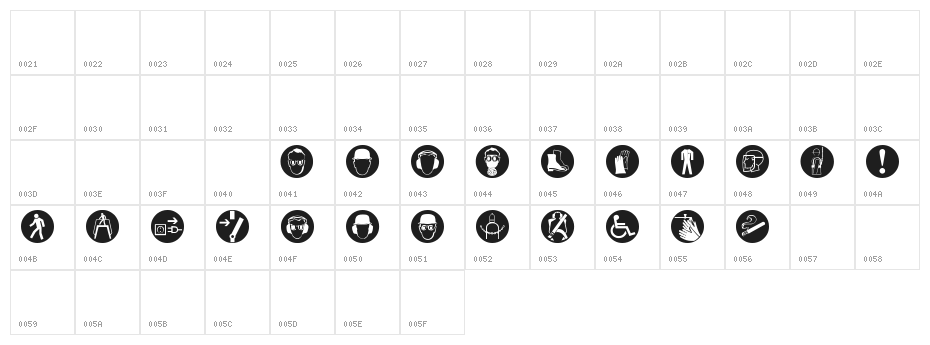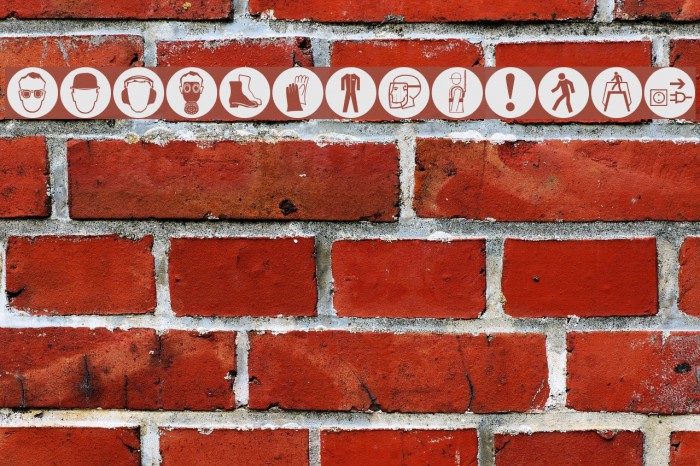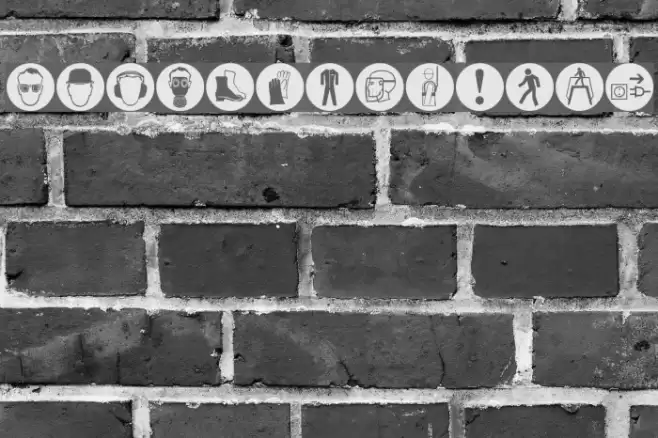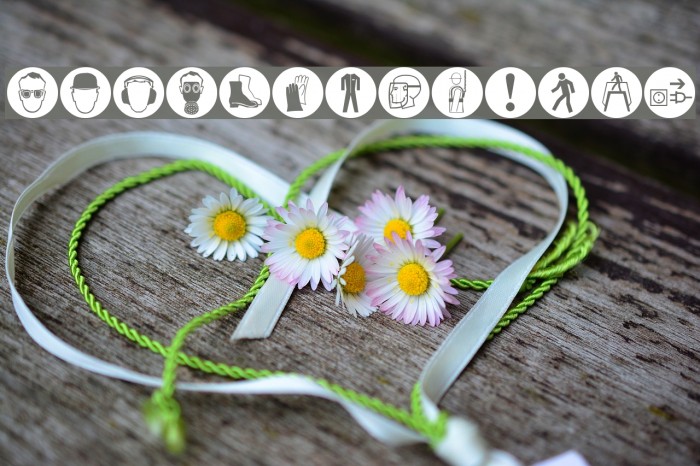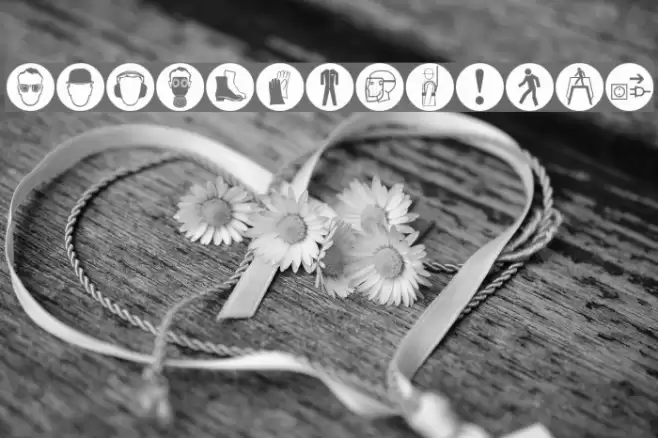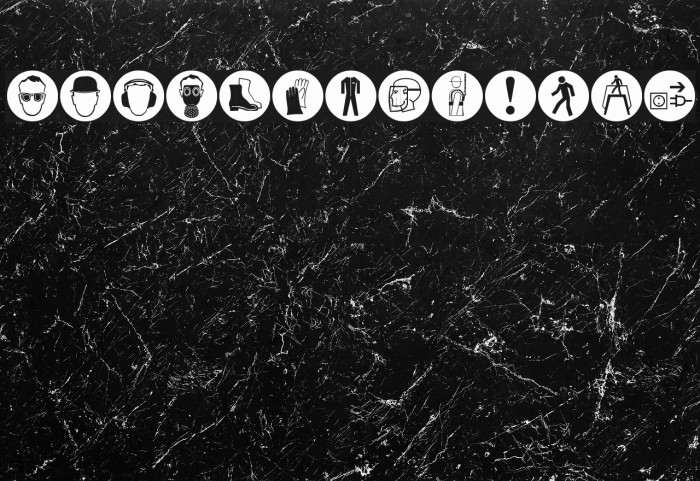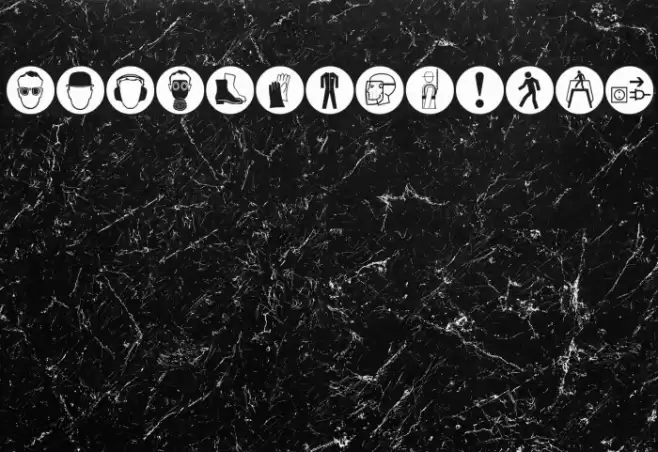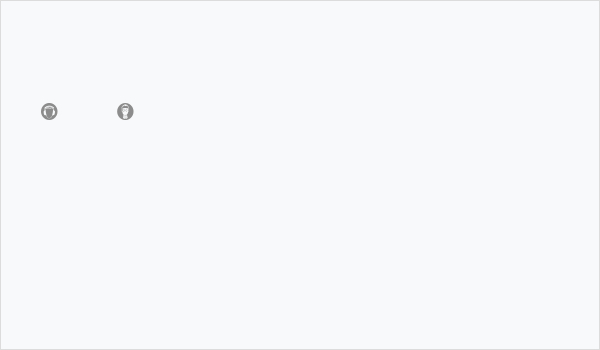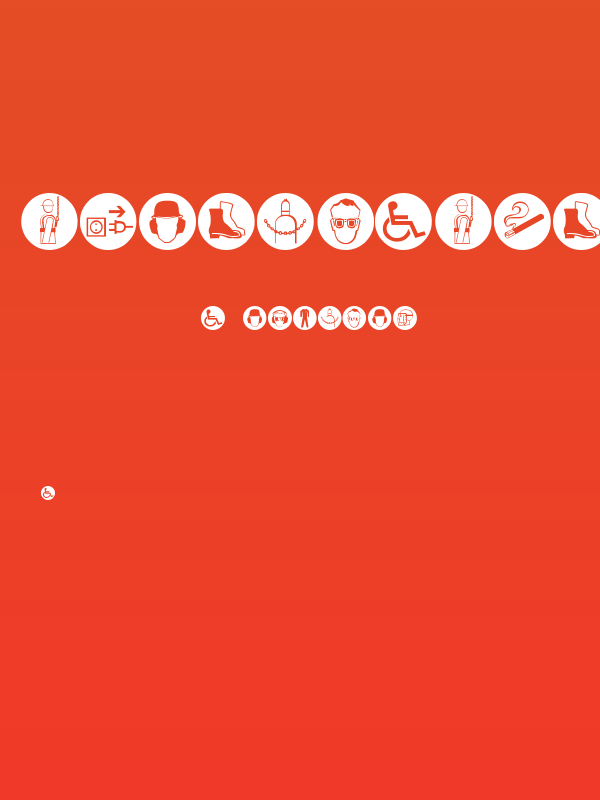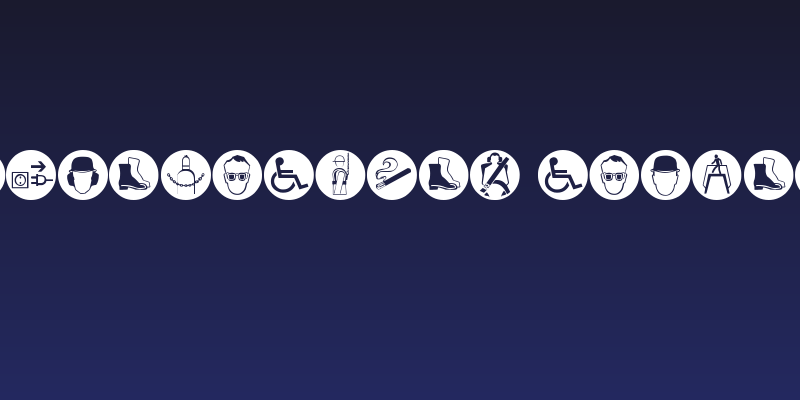
imperatives tables Font
imperatives tables Description
A set of bold, circular pictograms featuring clear, high-contrast white icons on black backgrounds, representing various safety and imperative actions such as wearing protective gear, washing hands, and following directional instructions. The icons are simple, geometric, and highly legible, designed for quick recognition in safety-critical environments.
| Overall Style | Modern, Functional, Utilitarian |
| Use Case | Signage, Instructional graphics, Safety manuals |
| Proposed Projects | Safety signage, industrial workplaces, public facilities, instructional posters, emergency exits, healthcare environments. |